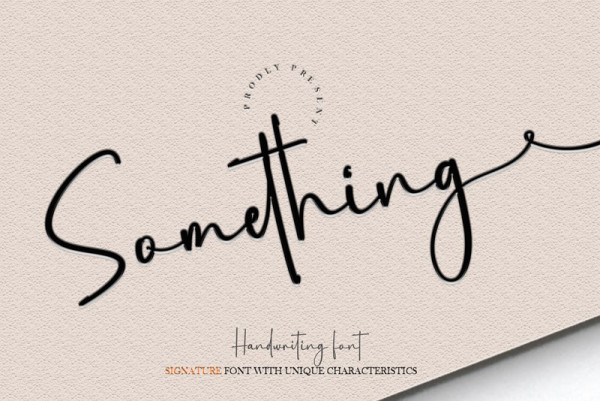
Something Handwritten Font
Something Handwritten Font, this font retains a classy calligraphic influence while feeling contemporary and fresh. This versatility will attract a wide range of creative ideas, from letterheads and titles to stationery.